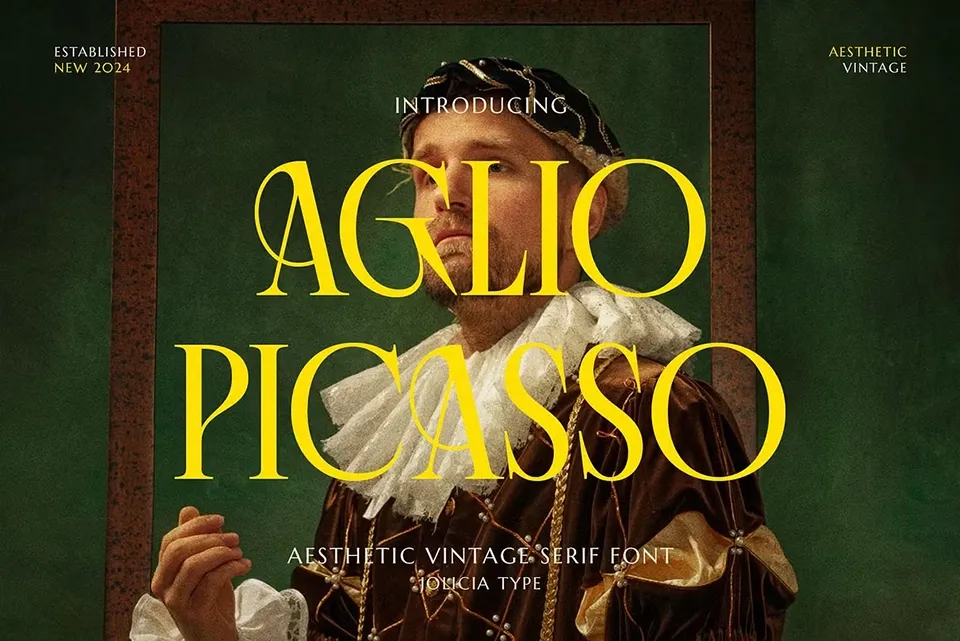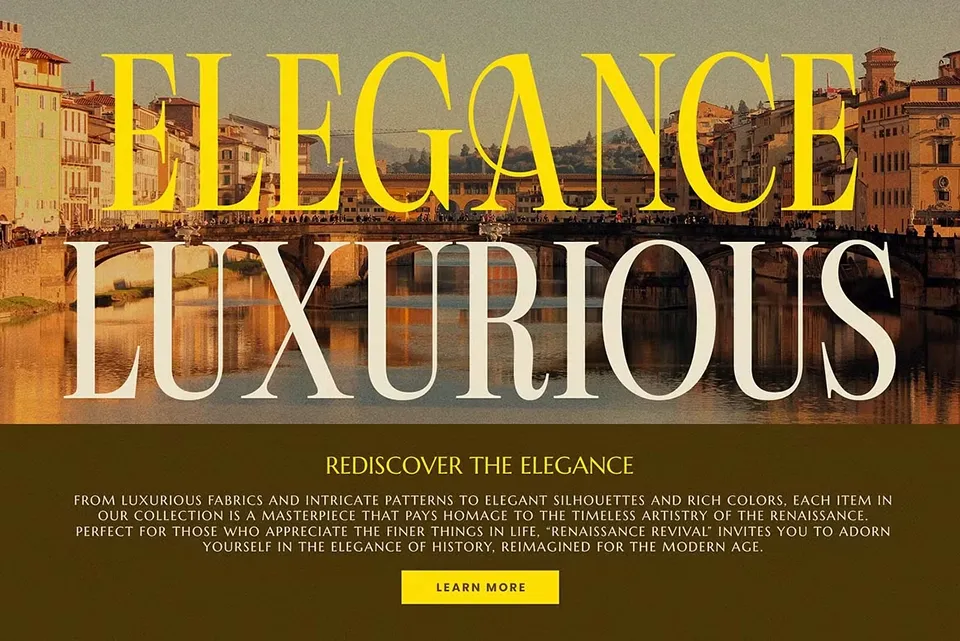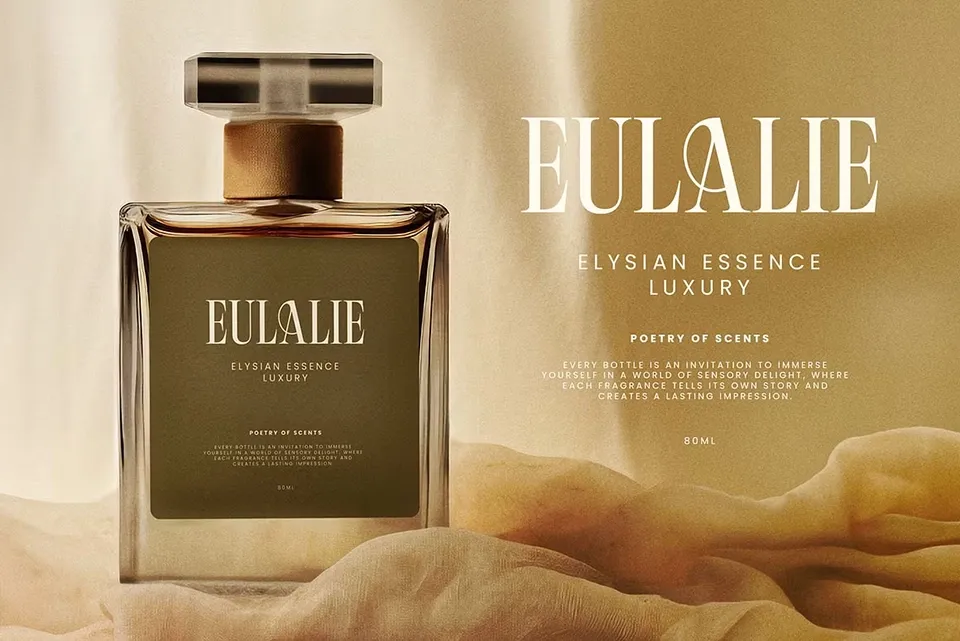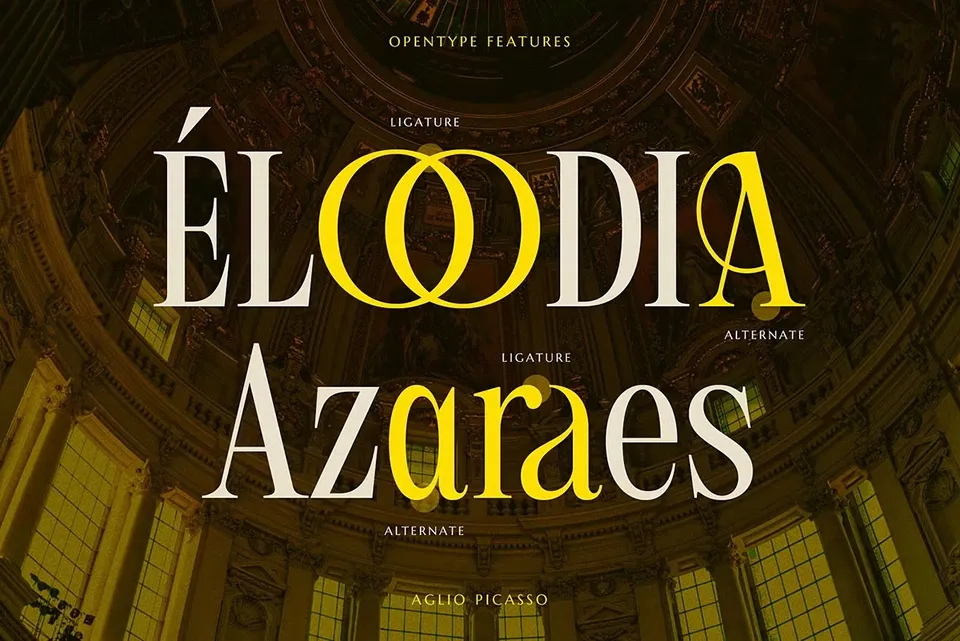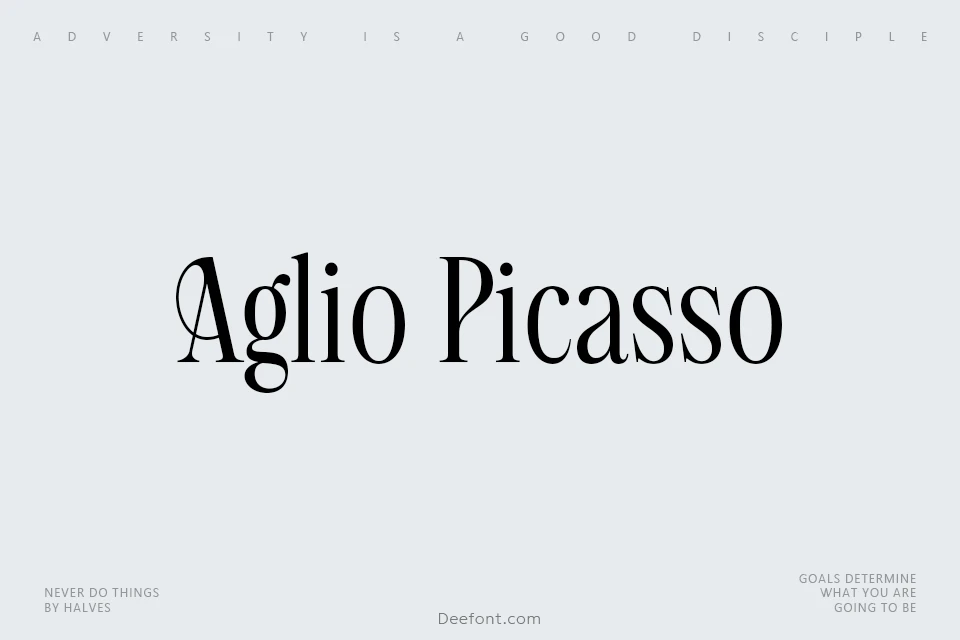
Aglio Picasso Font
Aglio Picasso Font is a modern and unique serif typeface inspired by the aesthetics of the 1970s. Characterized by flexible curved lines and elegant vintage details, this font is perfect for branding, invitations, posters, and any project seeking a blend of classic charm and retro cool. Its smooth curves and distinctive features ensure excellent readability, even at smaller sizes, making Aglio Picasso Font a standout choice for creative professionals.